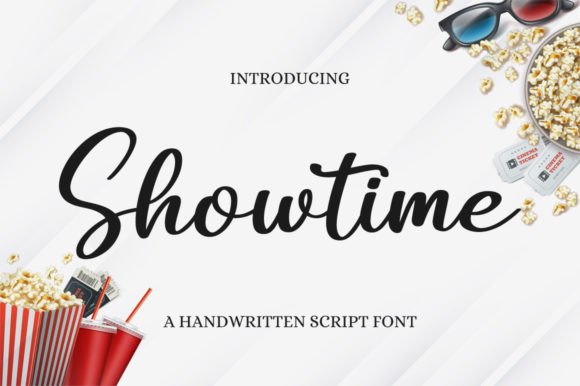
Journey into the realm of timeless elegance with Showtime Font, a script font family that captures the essence of home and warmth. This exquisite creation by Nirmala Creative is a love letter to the beauty of handwritten artistry, inviting you to weave tales of love, laughter, and nostalgia into your creative projects.
With its graceful curves, Showtime Font caresses your eyes with a sense of familiarity, like a beloved heirloom passed down through generations. Meticulously crafted with a human touch, each letter dances across the page, whispering sweet nothings in your imagination. Whether you seek to design heartfelt logos, evoke emotions through branding, or immortalize precious moments in quotes, Showtime Font is your steadfast companion.
Immerse yourself in Showtime Font's embrace, and let your creativity flourish. It's the perfect font for those who seek to evoke a sense of comfort, nostalgia, and timeless charm. Let the world feel the warmth of your heart and the depth of your soul as your words take shape, adorned with the elegance of Showtime Font.